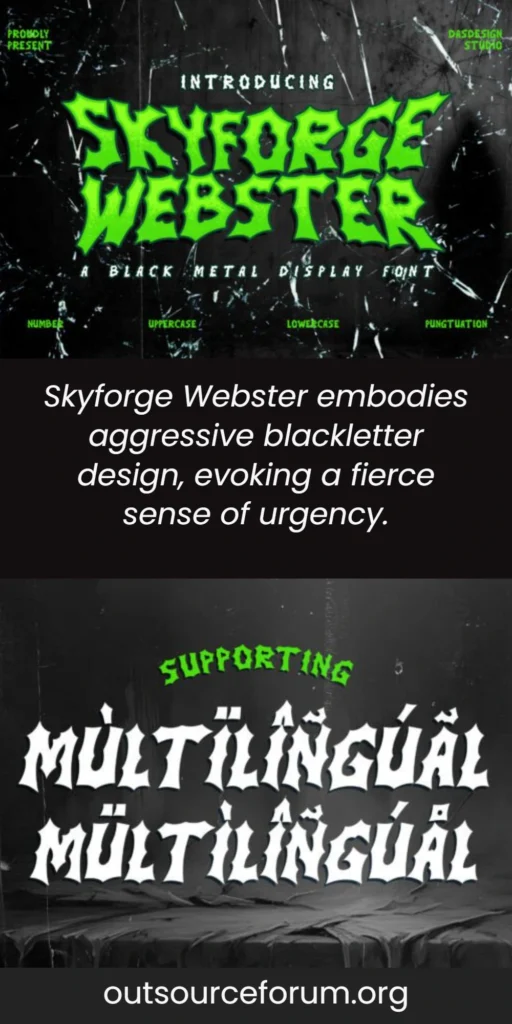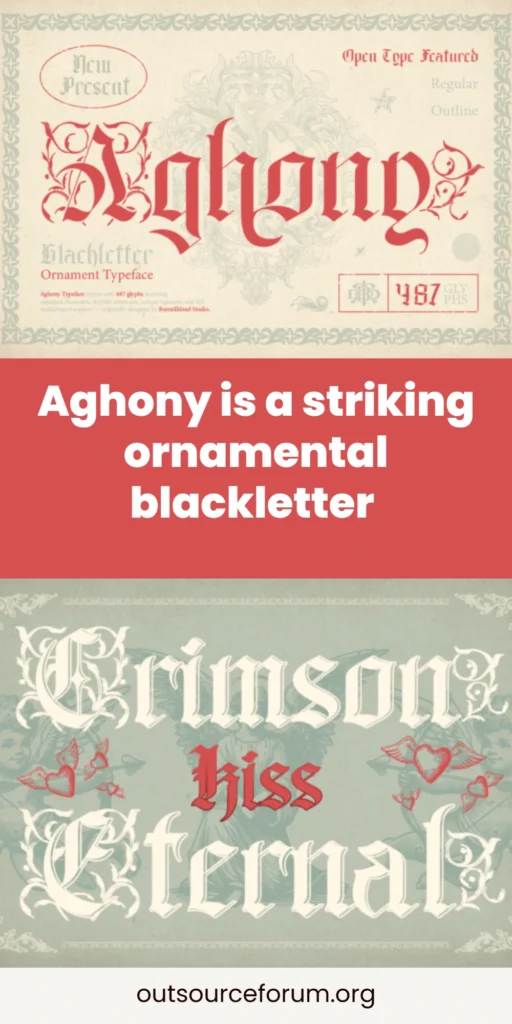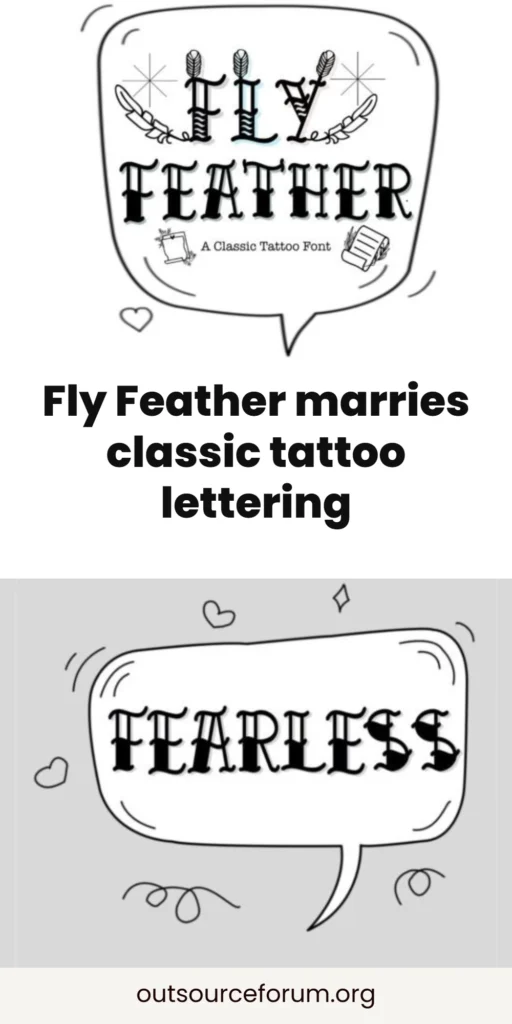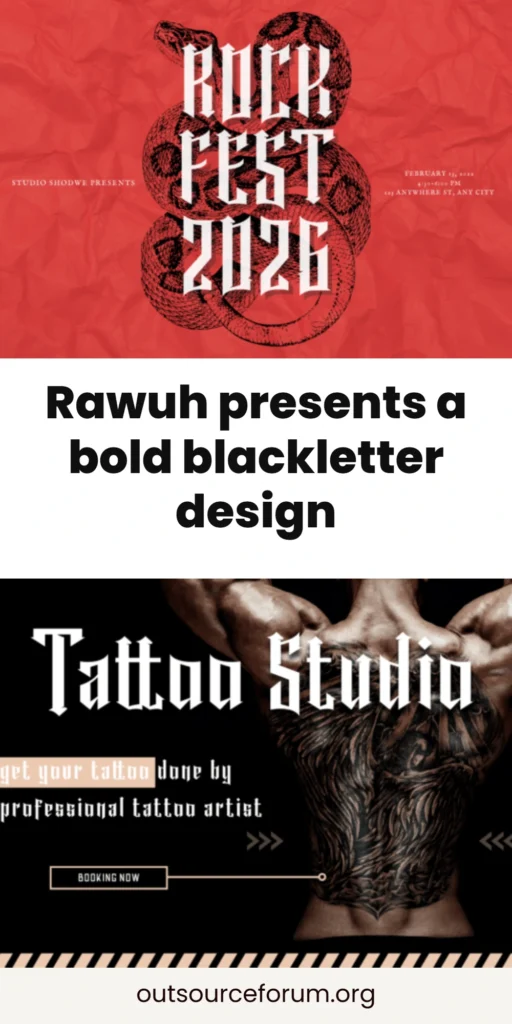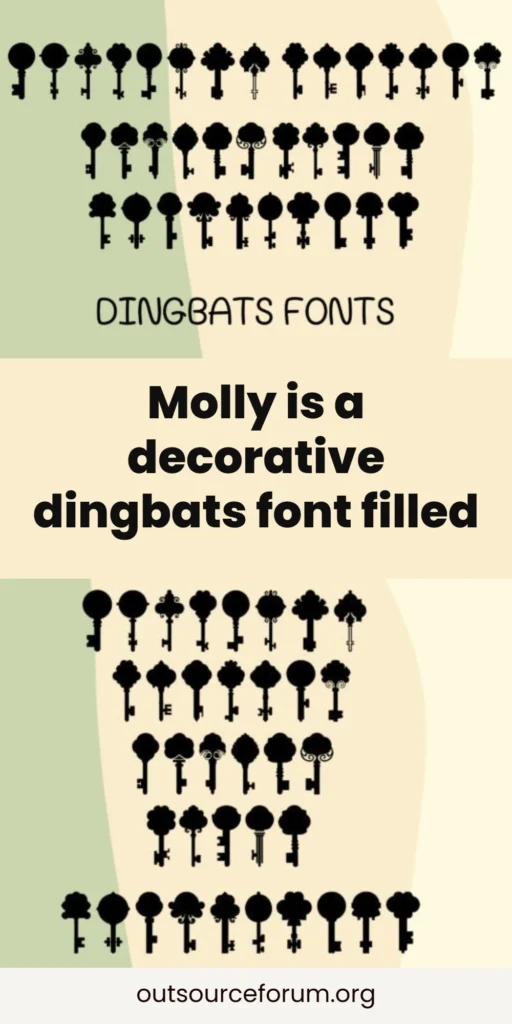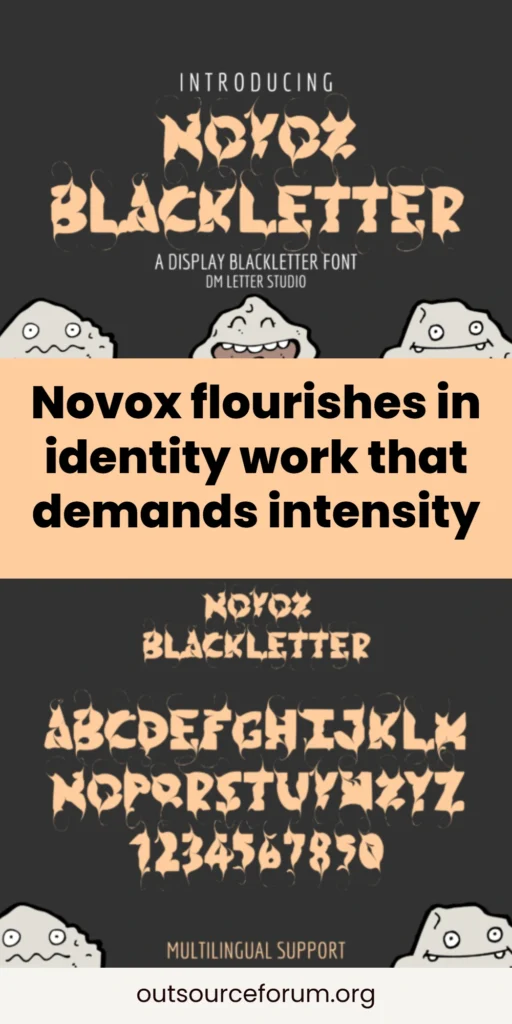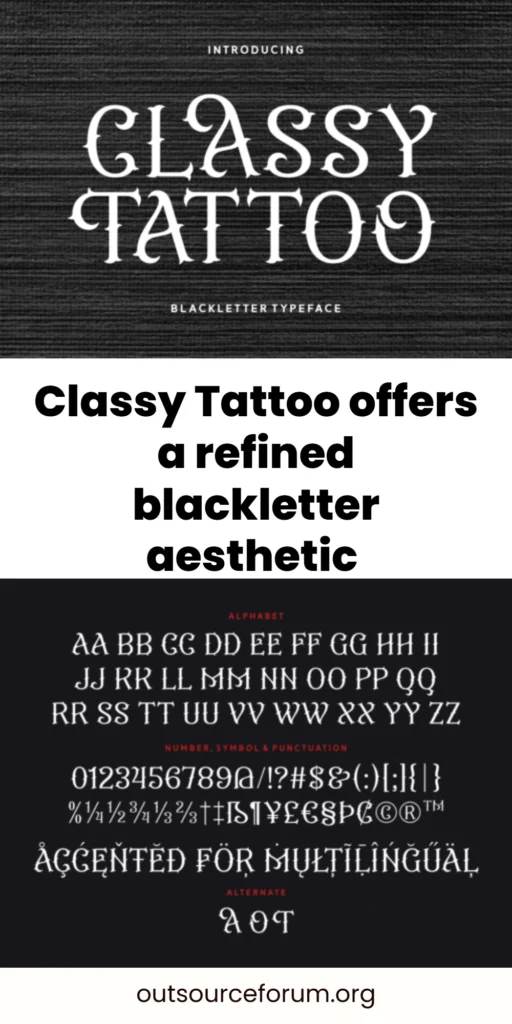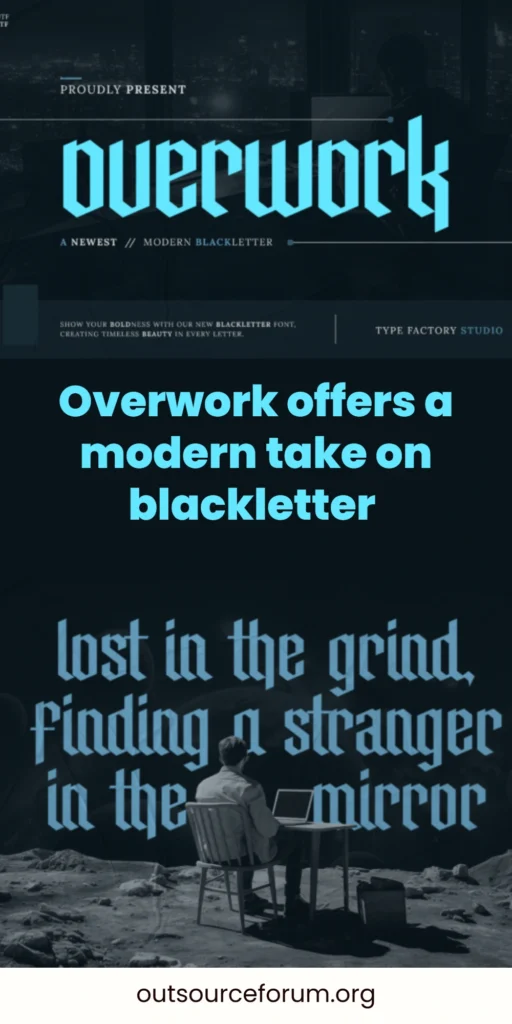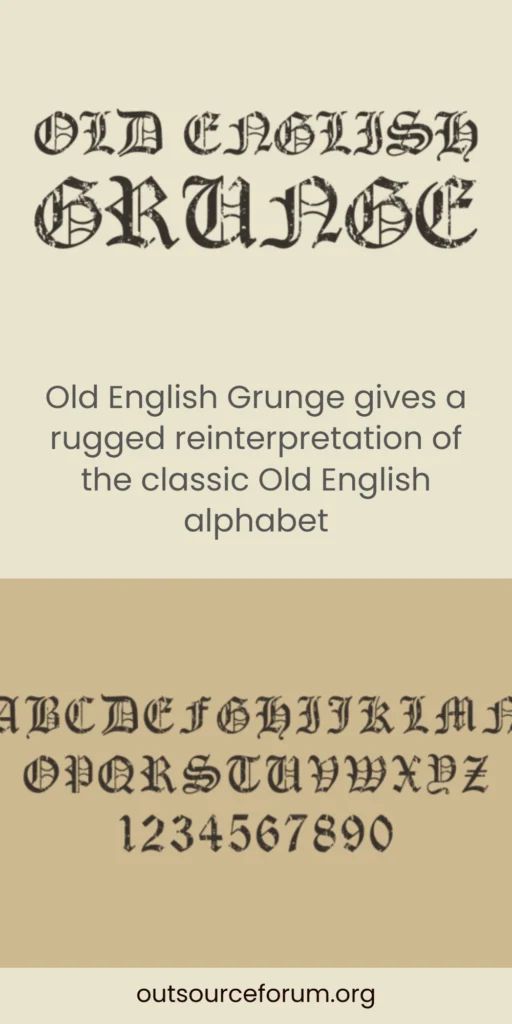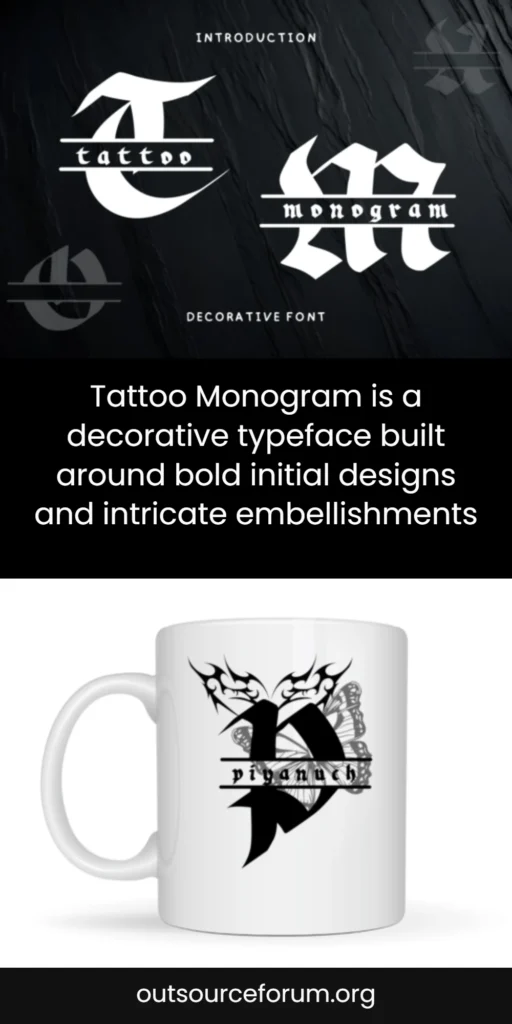
Discover the Allure of Gothic Tattoo Fonts: A Stylish Collection for Artistic Expression
Gothic tattoo fonts provide a captivating and timeless aesthetic that enhances body art, branding, and graphic design. With a selection of thirty styles, this compilation features blackletter, Old English, and medieval scripts, along with modern Gothic-inspired lettering tailored for tattoos, logos, and apparel. Whether you’re searching for bold, textured lettering for a back piece or elegant calligraphic strokes for a wrist tattoo, these fonts cater to a range of preferences. Keep reading for helpful tips on selecting the perfect font, optimizing size and spacing, and understanding licensing requirements to ensure your chosen typeface performs beautifully in both ink and print.
1. Aghony Font
Aghony is a striking ornamental blackletter that masterfully fuses heavy, angular strokes with delicate filigree and gentle swashes. Its letterforms resonate with the essence of medieval manuscripts while adding a modern contrast that creates a captivating rhythm. This balance makes Aghony a favored choice for designers seeking dramatic ink effects. With both Regular and Outline styles, Aghony is ideal for projects demanding bold yet ornate lettering. The Regular variant offers robust, high-impact fills for posters or album artwork, while the Outline option provides lighter, tattoo-friendly shapes that maintain clarity at larger sizes.
Quote – “I’d choose Aghony when I need a commanding medieval vibe that feels fresh and contemporary, making it perfect for album covers, poster headlines, or Gothic brand identities.”
2. Fly Feather Font
Fly Feather marries classic tattoo lettering with a playful serif flair, adorned with delightful feathered accents that give each character a handcrafted charm. This font exudes a casual and approachable vibe, making it suitable for creative projects that prioritize personality over strict historical accuracy. The whimsical details of the feather motifs excel at display sizes, ideal for custom logos, apparel, signage, and illustrative badges. Fly Feather thrives in branding contexts that call for a vintage or retro tattoo aesthetic, such as indie barbershops and boutique labels.
Quote – “I’d recommend Fly Feather for projects needing a charming, handcrafted tattoo aesthetic without the heaviness of Old English styles, perfect for small-batch product labels and unique shop signage.”
3. Rawuh Font
Rawuh presents a bold blackletter design emphasizing verticality and narrow counters, delivering a modern Gothic flair. The sharp terminals and compact proportions create an intense texture that captures attention, making it perfect for wordmarks, packaging labels, and signage. This font thrives in designs needing a strong typographic signature within confined spaces. With legibility intact at medium display sizes, Rawuh performs beautifully in vector stencils or carved signage, especially when paired with understated sans-serif or slab-serif fonts to maintain the focus on the blackletter.
Quote – “I’d opt for Rawuh when I need a compact, aggressive voice in my designs—ideal for posters, labels, and brand marks that demand presence without sprawling.”
4. Molly Dingbats Font
Molly is a decorative dingbats font filled with charming illustrations of antique keys and decorative flourishes. Each glyph presents as a tiny engraved icon with graceful curves and floral-inspired accents that feel hand-cut and timeless. The vintage aura complements themed projects such as wedding invitations, jewelry packaging, boutique logos, and creative stationery, shining particularly when paired with darker lettering styles. With clean reproduction across various sizes, Molly serves perfectly for stickers and labels while maintaining legibility for branding essentials.
Quote – “I’d turn to Molly when a project calls for small yet impactful ornaments that bring a nostalgic, Gothic touch—perfect for boutique branding, jewelry packaging, and tattoo-inspired designs.”
5. Novox Blackletter Font
Novox Blackletter presents a contemporary interpretation of traditional Old English letterforms through heavy strokes and ornate internal counters. This typeface seamlessly merges the dramatic flair of medieval calligraphy with modern refinements for better readability, particularly at headline sizes. Novox flourishes in identity work that demands intensity—think band logos, apparel designs, and event posters. When used as an emblematic mark, Novox imbues designs with immediate attitude, ensuring impactful typographic compositions.
Quote – “I’d choose Novox Blackletter when projects require a powerful Gothic persona—ideal for metal band logos, theatrical posters, or premium streetwear that demands visual presence.”
6. Classy Tattoo Font
Classy Tattoo offers a refined blackletter aesthetic tailored specifically for tattoo applications. The font combines crisp cuts with subtle ornamental elements, resulting in anatomical balance and smooth flow, which translate perfectly to skin or print. The overall tone suggests a sophisticated rebellion—an edge that translates effortlessly into studio branding, apparel, packaging, and album art. When applying Classy Tattoo on skin, its defined terminals minimize ink spread, while in merchandise, it delivers reliable silhouettes.
Quote – “I’d recommend Classy Tattoo for tattoo studios, merch designers, and musicians seeking authentic Gothic lettering that reads beautifully in both ink and print.”